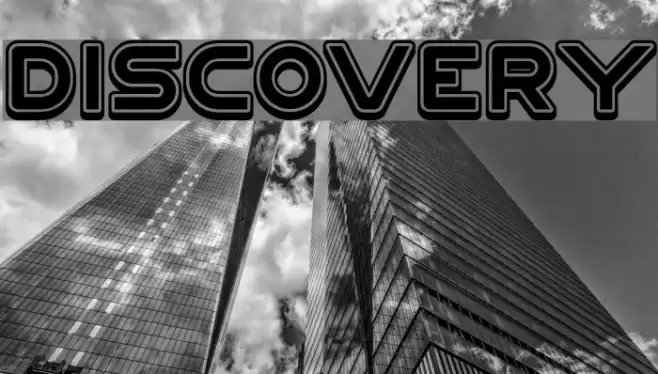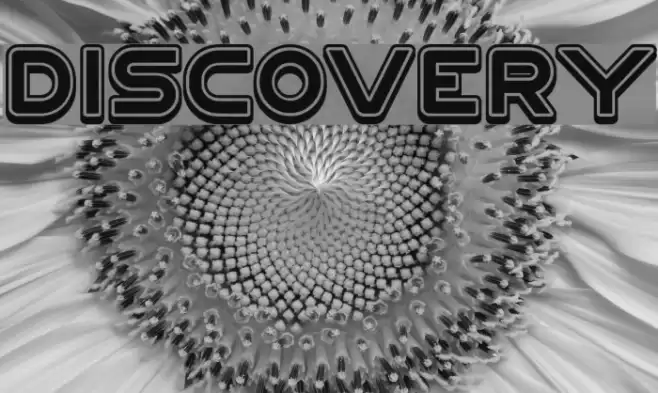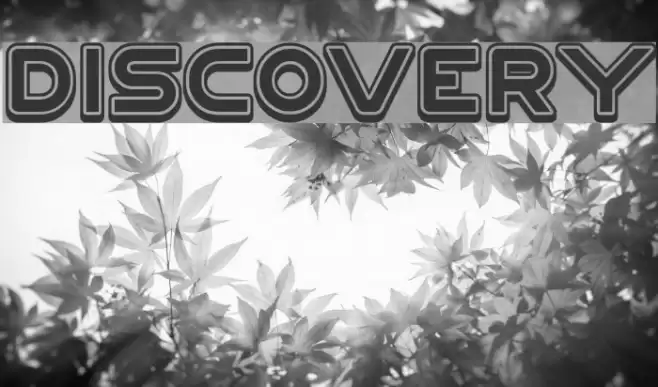
DISCOVERY Font
DISCOVERY Description
This font features a bold, geometric design with a double-line outline that creates a striking, dimensional effect. The characters are uppercase, with a modern and futuristic aesthetic. The clean lines and symmetrical shapes give it a structured and organized appearance, making it suitable for attention-grabbing headlines and titles. The font's style is reminiscent of digital or technological themes, with a sense of precision and clarity. Its boldness and unique outline make it stand out, while the consistent width and height of the characters ensure readability and balance.
A bold, geometric font with a double-line outline, perfect for modern and futuristic designs from Uncategorized fonts.
- Proposed Projects: Ideal for technology branding, digital media, futuristic posters, and video game titles.